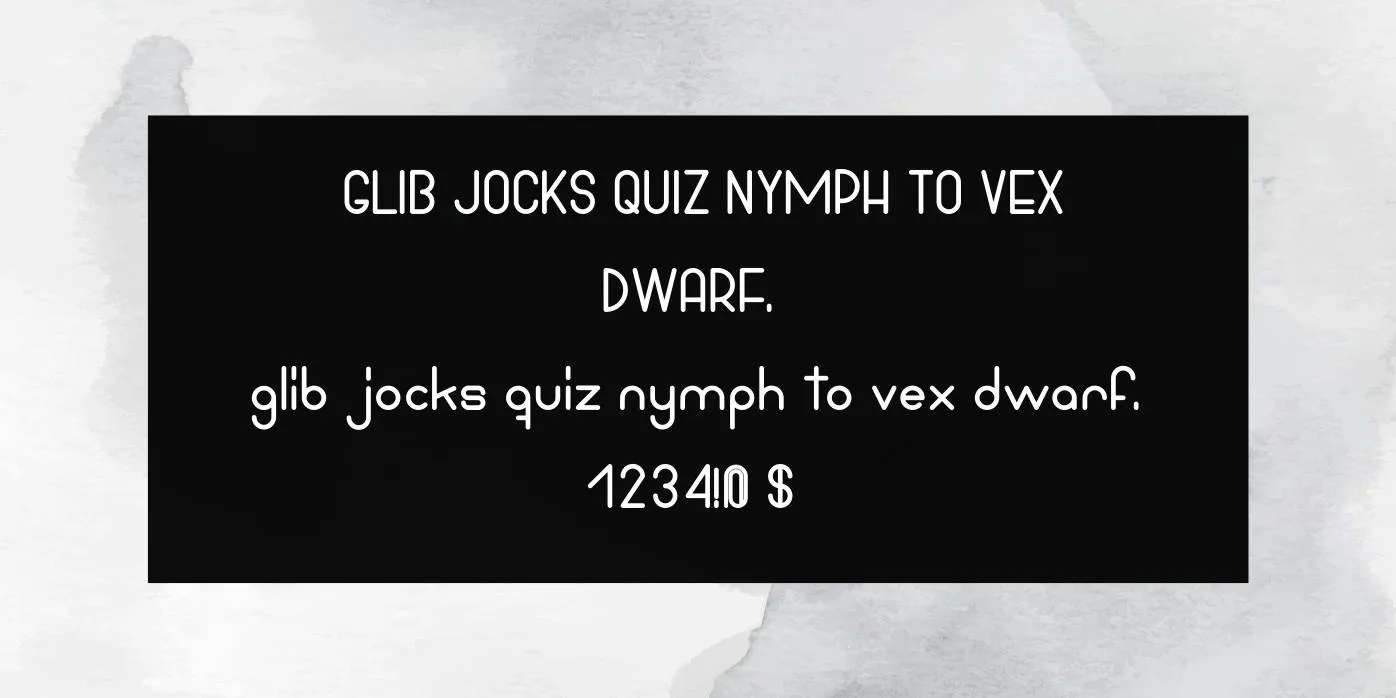
Bowhouse Font
Bowhouse Font is a well-suited typeface for graphic designs and uses in Corporate Branding design. That typeface family is designed by Adrian Candela. In this font, there are four different weights Such is light, regular, bold, and black. Hopefully, You will find that typeface a simple, refreshing change from other commercial fonts.
And that typeface supported different languages like Italian, Norwegian, Portuguese, English, German, Afrikaans, Swedish, etc. This font has Totally unique for its simplicity and being found that This is totally outside the other typefaces. Haboro sans font is the most similar typeface to this font. Usage In that typeface letters, simplicity gives to typeface a better good look and a Warmer feeling.
Other commercial fonts totally change their look and the designer loves them because of their look. The designer used it for designing book covers and posters designing. That typeface is a good reading score. Using that font style, you can make a general report, and documentation and also use it for designing an attractive and good-looking Shop/Store name.
There are many fonts that are similar to this, But for looking to that softer geometric typeface the only two are mostly similar to that is kalos sans font and Simple, etc. Bowhouse Font is best for the book title? Yes, That typeface is so simple and unique So that is best for Book Cover design, Using this font design book covers that look perfect. How many weights does the Bowhouse Font have?
That typeface has inspired by the Bauhaus movement. They have four different weights such as light, regular, bold, and black. What type of font is Bowhouse Font? Bowhouse is a Basic type of typeface that typeface used on any device such as Android, IOS, Linux, Mac, and PC.